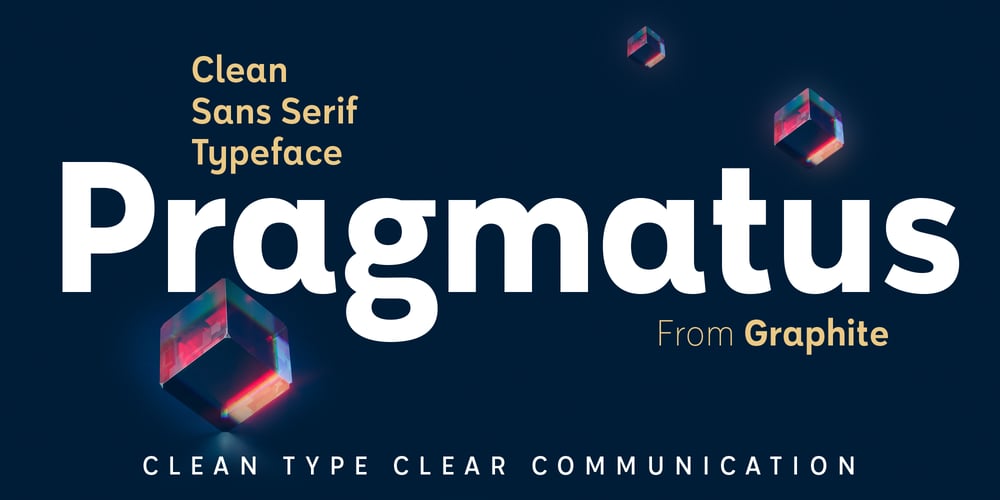
Pragmatus Font Family was designed by Deepak Dogra and published by Graphite. Pragmatus contains 8 styles and family package options. Pragmatus is a clean and refined sans serif typeface family available in eight weights. Its well balanced proportions and excellent legibility help it perform effectively across a broad spectrum of point sizes and mediums covering both print and digital formats. Its simplicity imparts a sincere yet impactful tone, which makes it assertive without being overbearing and approachable without being overly casual. This makes it suitable for a variety of applications, ranging from branding and impactful headlines to smaller body text.